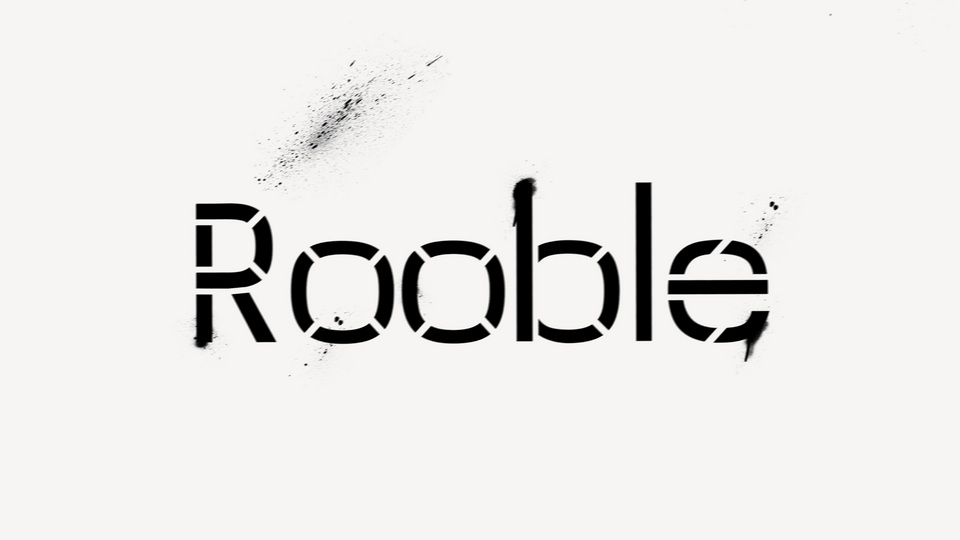
Download Rooble font, a grotesque-inspired display typeface. Rooble is an attempt to convey the spirit of the time without copying all the features thoroughly.